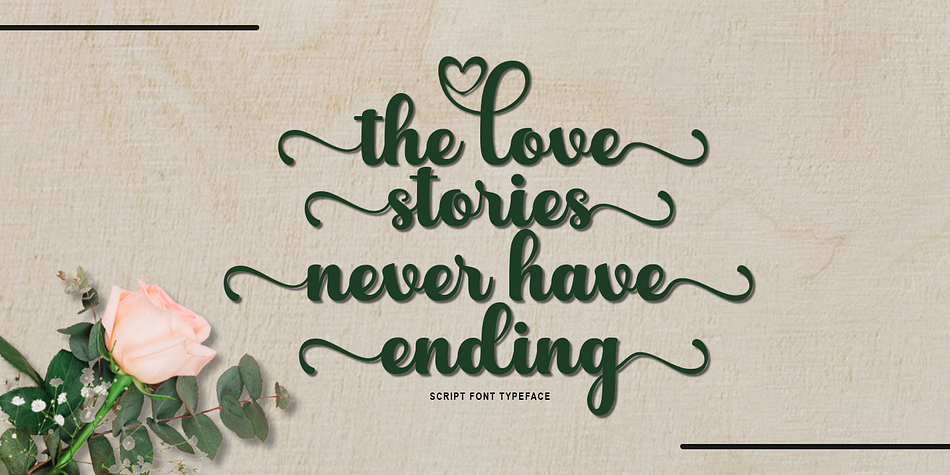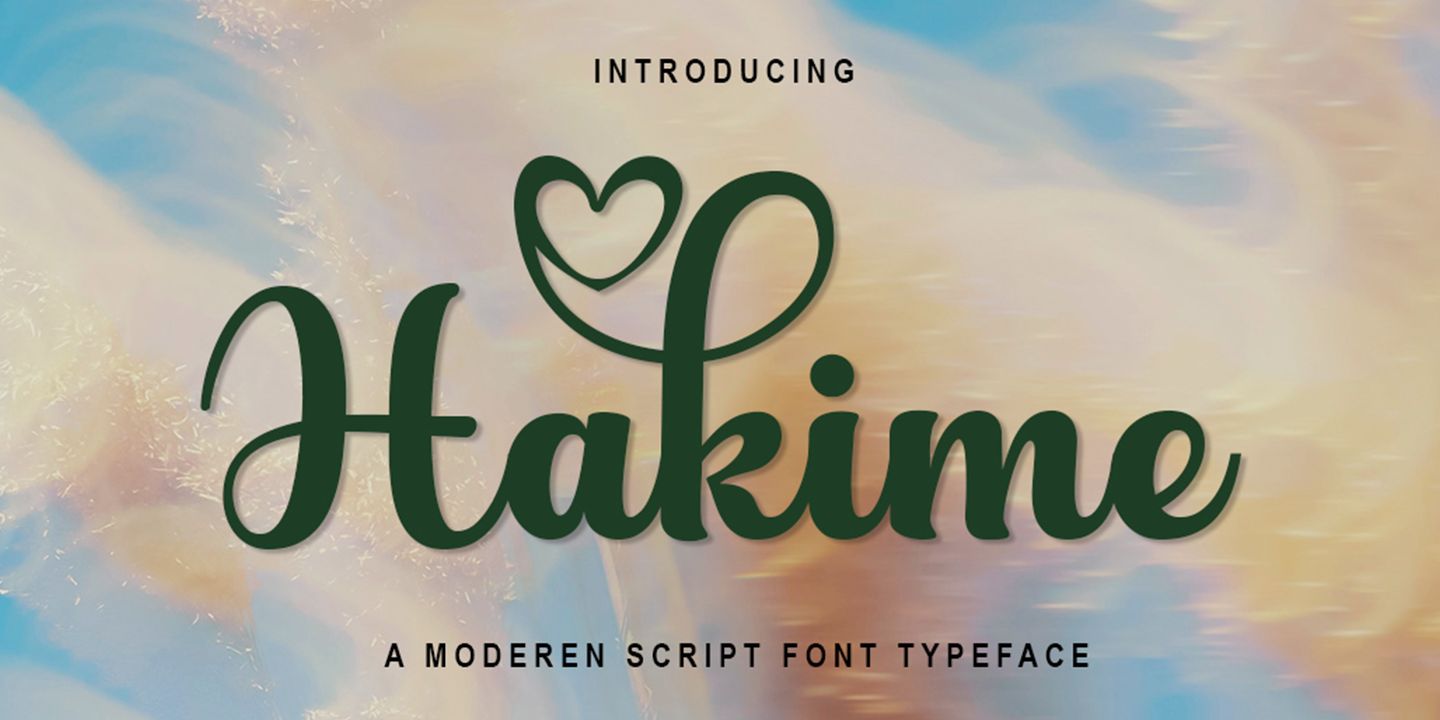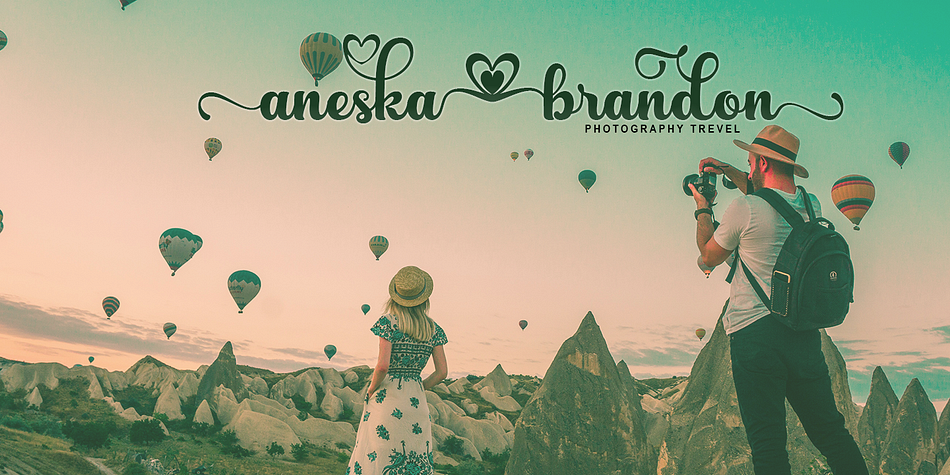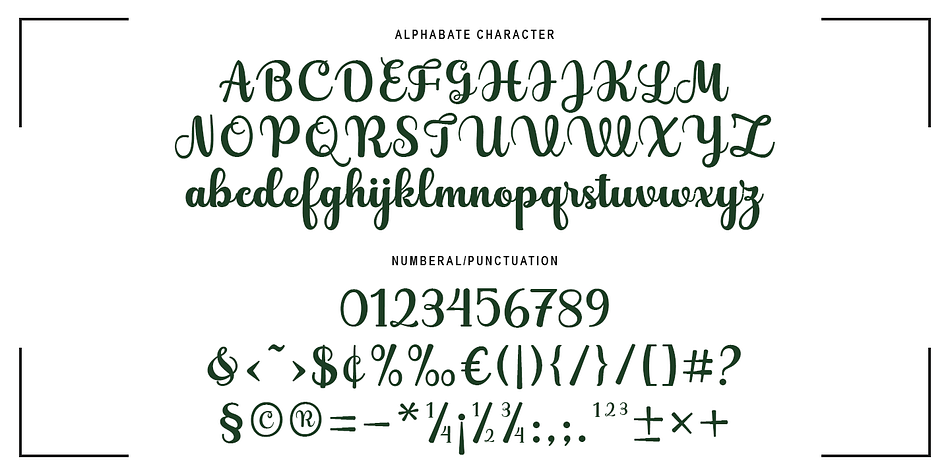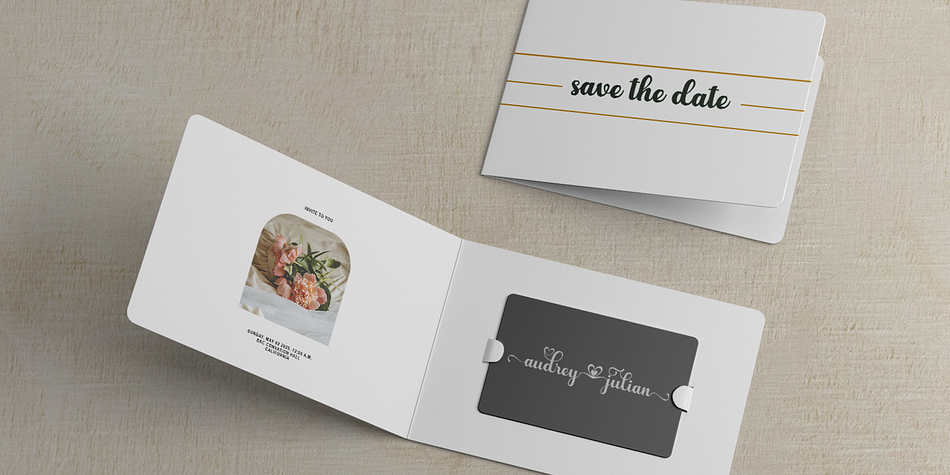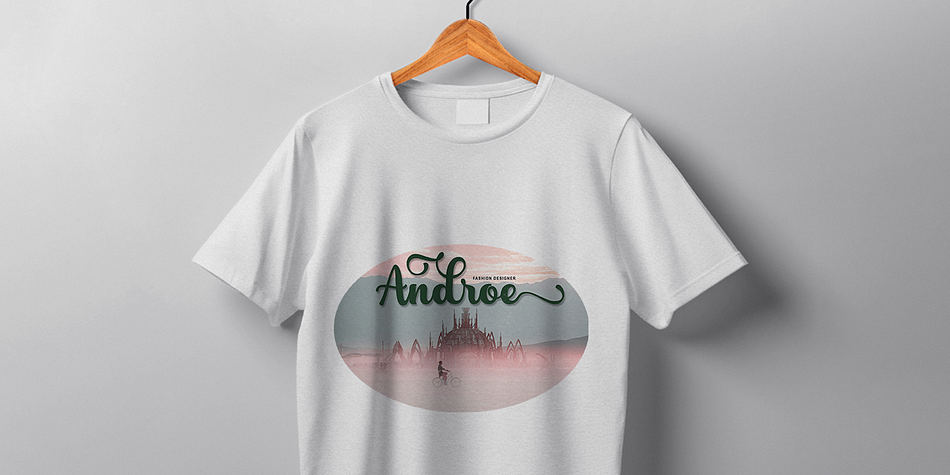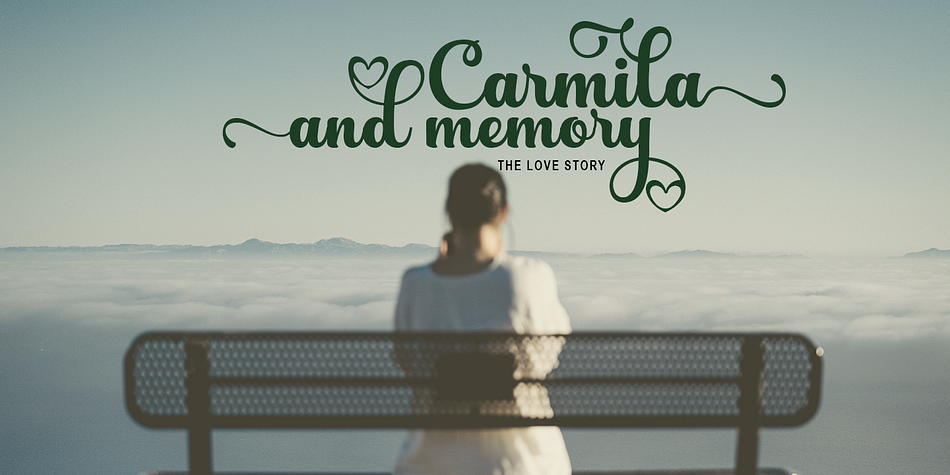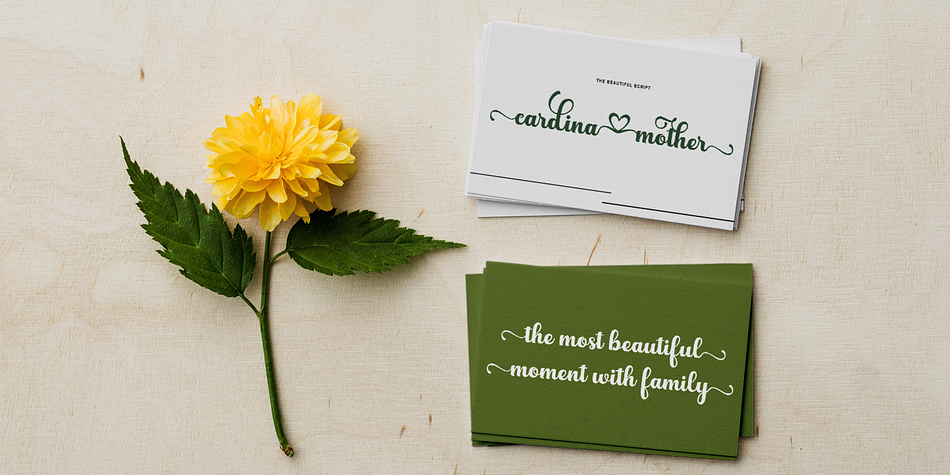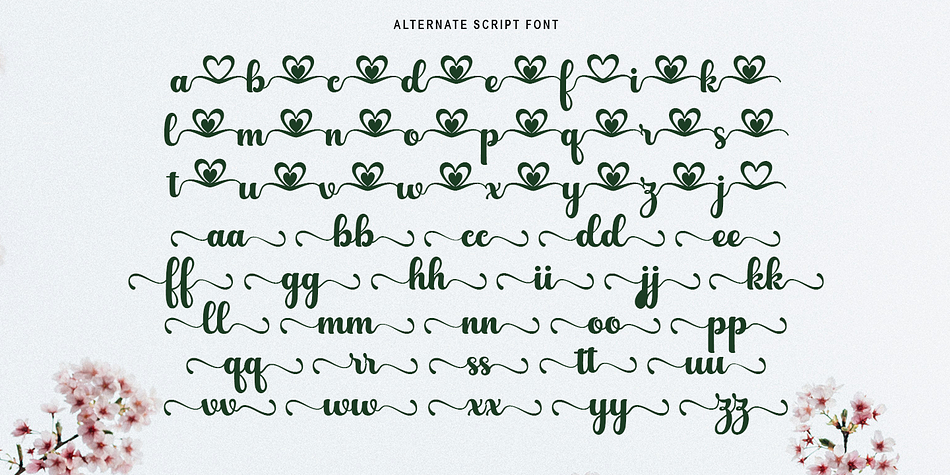
Hakime
Hakime is a brush script font family published by Gatype.
Hakime is an elegant script font with smooth and flowing handwritten strokes. Each letter is meticulously crafted, creating a look that exudes both sophistication and warmth. Ideal for various design needs such as wedding invitations, logos, branding, and other creative projects, With its balanced weight and gentle curves, this font is easy to read without sacrificing its unique character. The combination of classic and modern styles makes Hakime perfect for adding an exclusive flair to a wide range of design media.